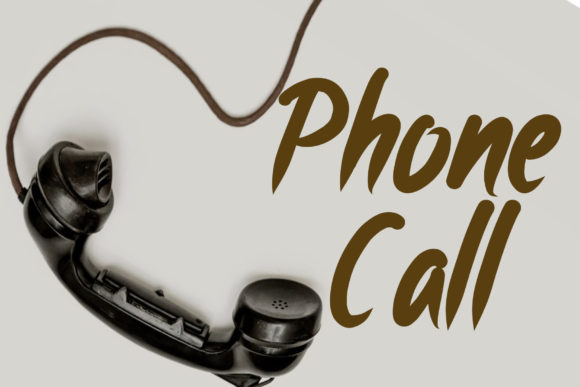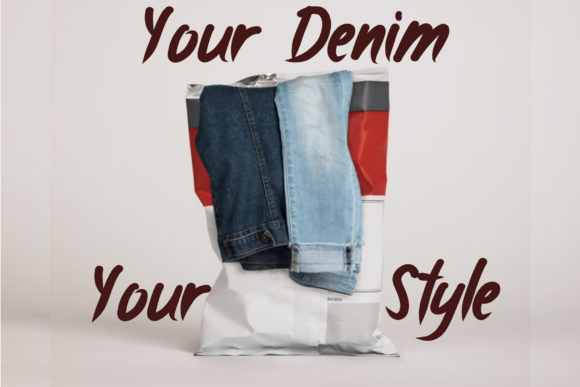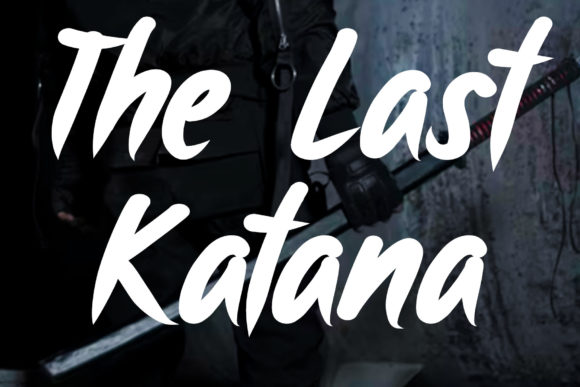
Introduction to Jonathan Vintage Font
Jonathan Vintage is a beautiful, well balanced and stylish script font.
It is defined by smooth curves and is perfect for fashion branding or editorial designs Add it confidently to your projects, and you will love the results.
Jonathan Vintage Font offers exceptional quality and versatility, making it a valuable addition to your design toolkit. Whether you’re creating for personal projects or commercial use, Jonathan Vintage Font delivers professional results.